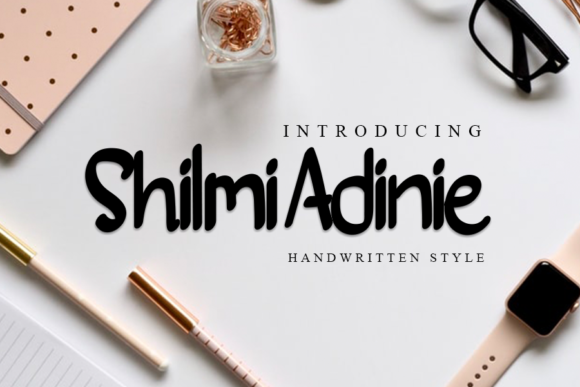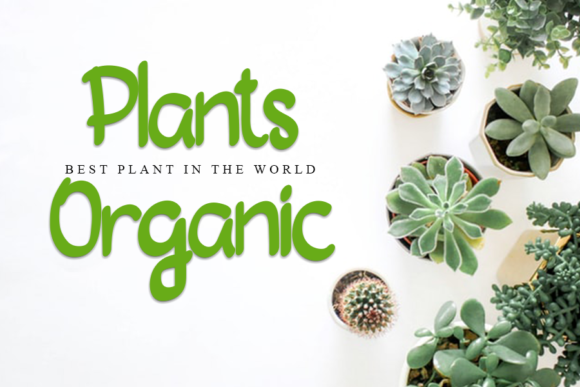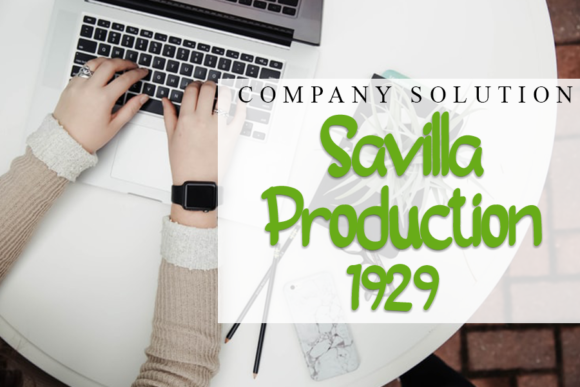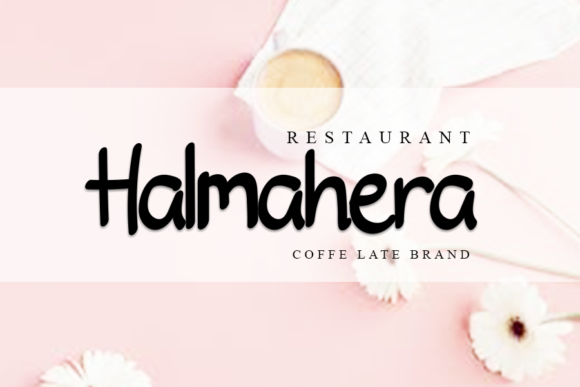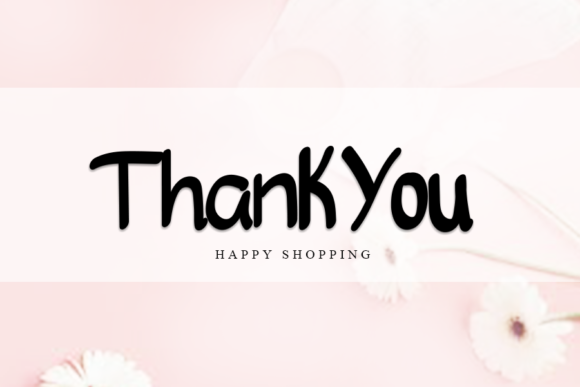
Shilmi Adinie Font
About Shilmi Adinie Font
Shilmi Adinie is a cute handwritten font, carefully handcrafted to become a true favorite. Its casual charm makes it appear wonderfully down-to-earth, readable and, ultimately, incredibly versatile. This font will look outstanding in any context, whether it’s being used on busy backgrounds or as a standalone headline!